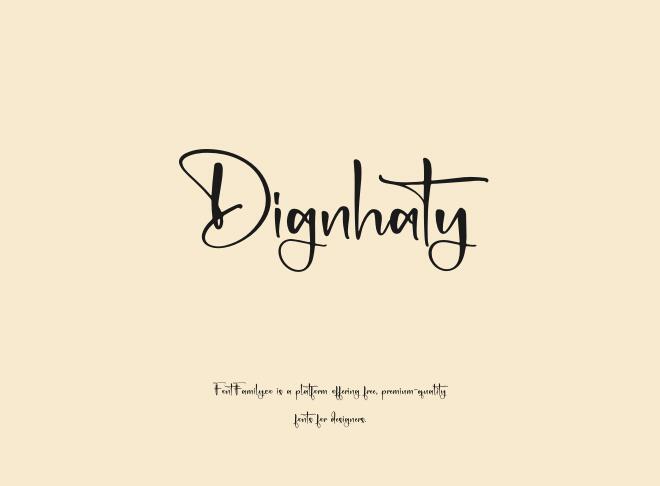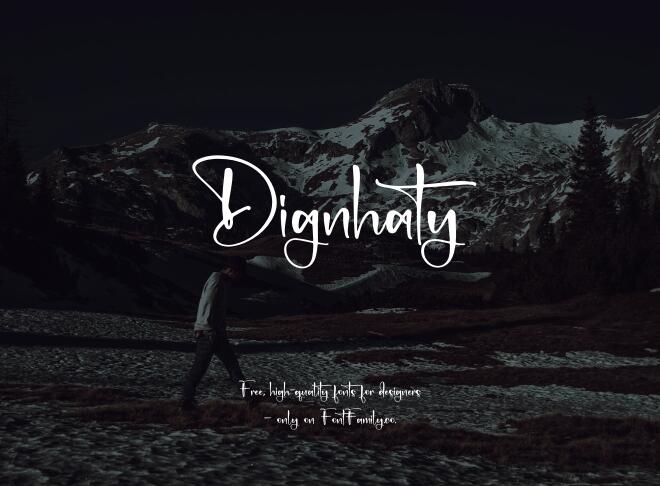
Dignhaty Font
Dignhaty Font is a modern, elegant, and script-style font that offers a beautiful blend of classic and contemporary elements. Its smooth curves and clean lines make it a versatile choice for a wide range of design projects. From wedding invitations and event signage to branding and logo design, Dignhaty Font adds a touch of sophistication and style. Compared to other fonts, it stands out with its unique character shapes and well-balanced letterforms. The font draws its inspiration from traditional calligraphy, but with a modern twist, making it a great choice for those seeking to infuse a sense of charm and elegance into their designs. Its free to download and perfect for designers looking to add a refined touch to their creative projects.